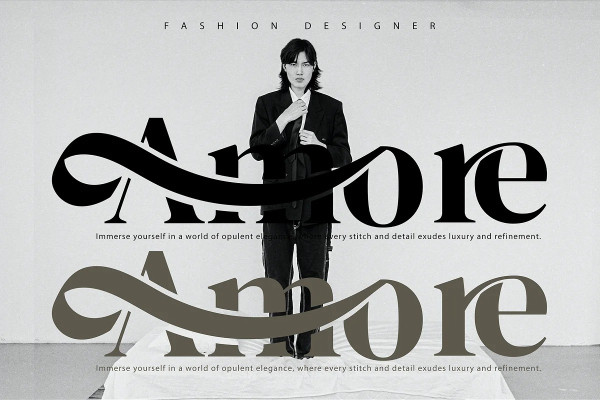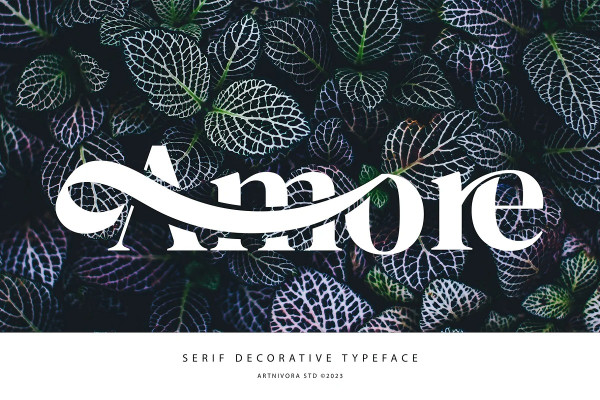
Amore Font
Amore Font, a simple and serif font. So perfect for you who needs a typeface for logo designs, magazine, social media, brochure, and many more.